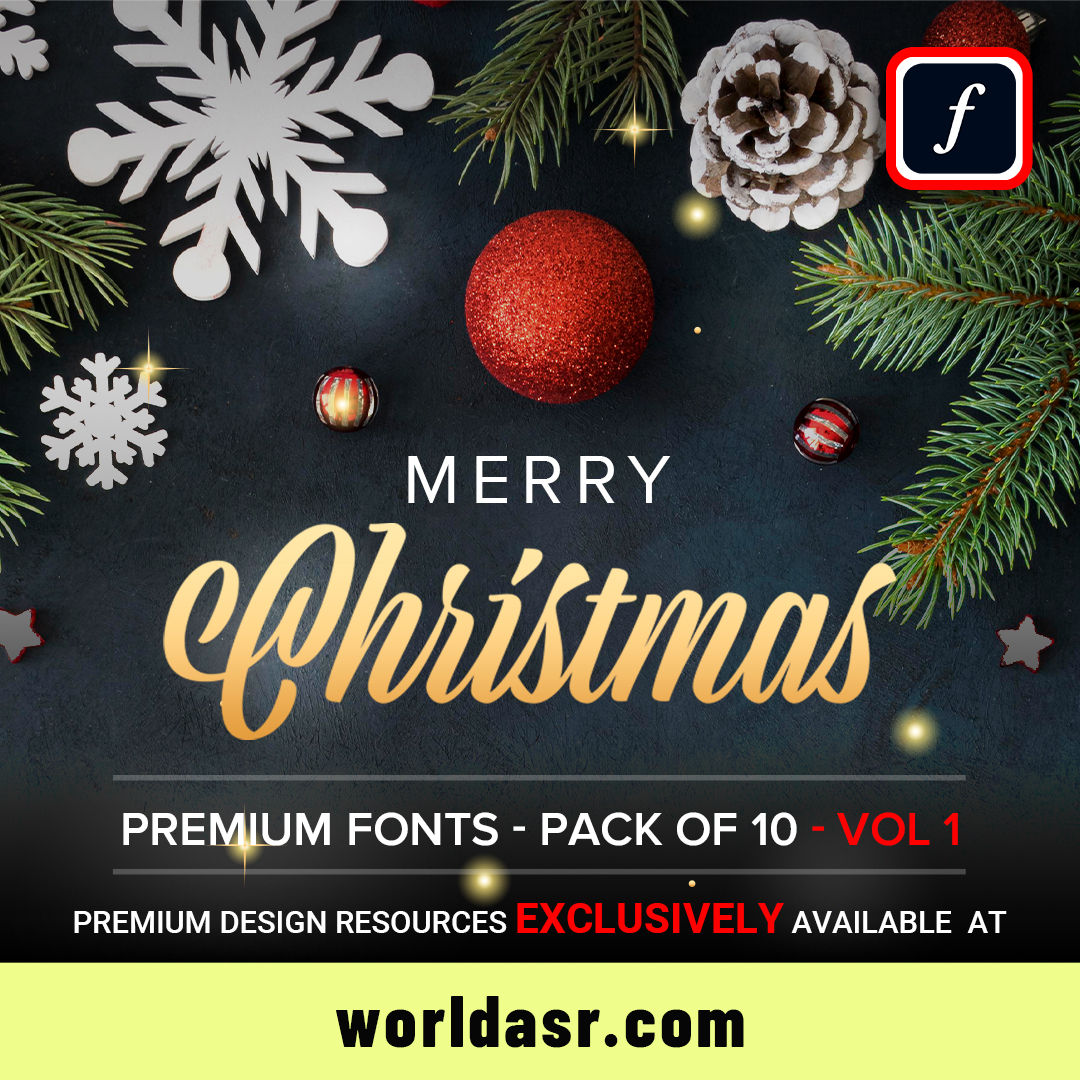
Add a festive flair to your designs with Christmas Premium Fonts (Pack of 10) - Vol. 1.
This versatile collection features beautifully crafted fonts to make your holiday projects stand out and spread the joy of the season.
🎄 10 Unique Festive Fonts: A curated selection of elegant, whimsical, and decorative fonts perfect for Christmas-themed designs.
✨ Professional Quality: Expertly designed with smooth details for stunning results in any creative project.
🎁 Ideal for Seasonal Creations: Perfect for crafting greeting cards, invitations, gift tags, social media graphics, and more.